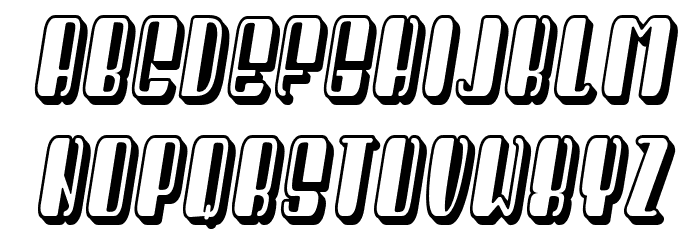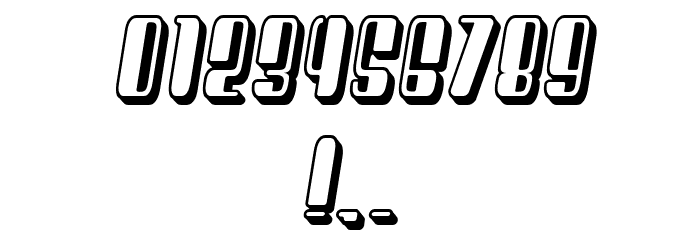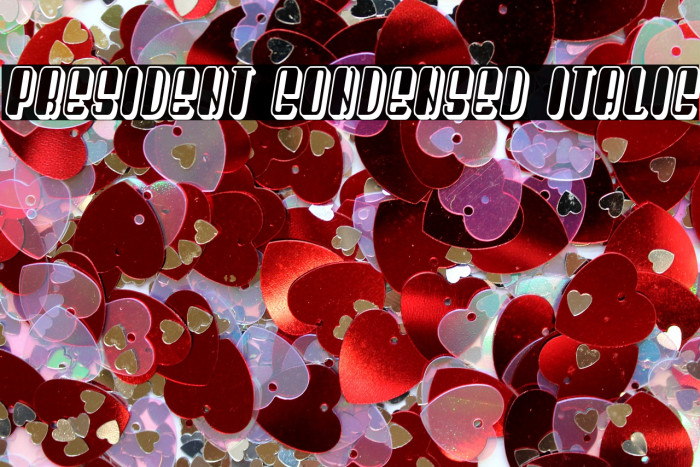
President Condensed Italic Font
This font features a bold, condensed style with a distinct italic slant, giving it a dynamic and modern appearance. The characters are outlined, creating a three-dimensional effect that adds depth and visual interest. The uppercase letters are uniform in height, while the lowercase letters maintain a consistent style, ensuring readability. The numbers and special characters are designed to match the bold and italicized look of the alphabet, making the font versatile for various applications. The overall design is clean and impactful, suitable for making a strong visual statement.
Bold, condensed, italic font with a three-dimensional outline effect.
- Font: President Condensed Italic
- Proposed Projects: Ideal for posters, headlines, logos, and branding materials that require a bold and modern look.